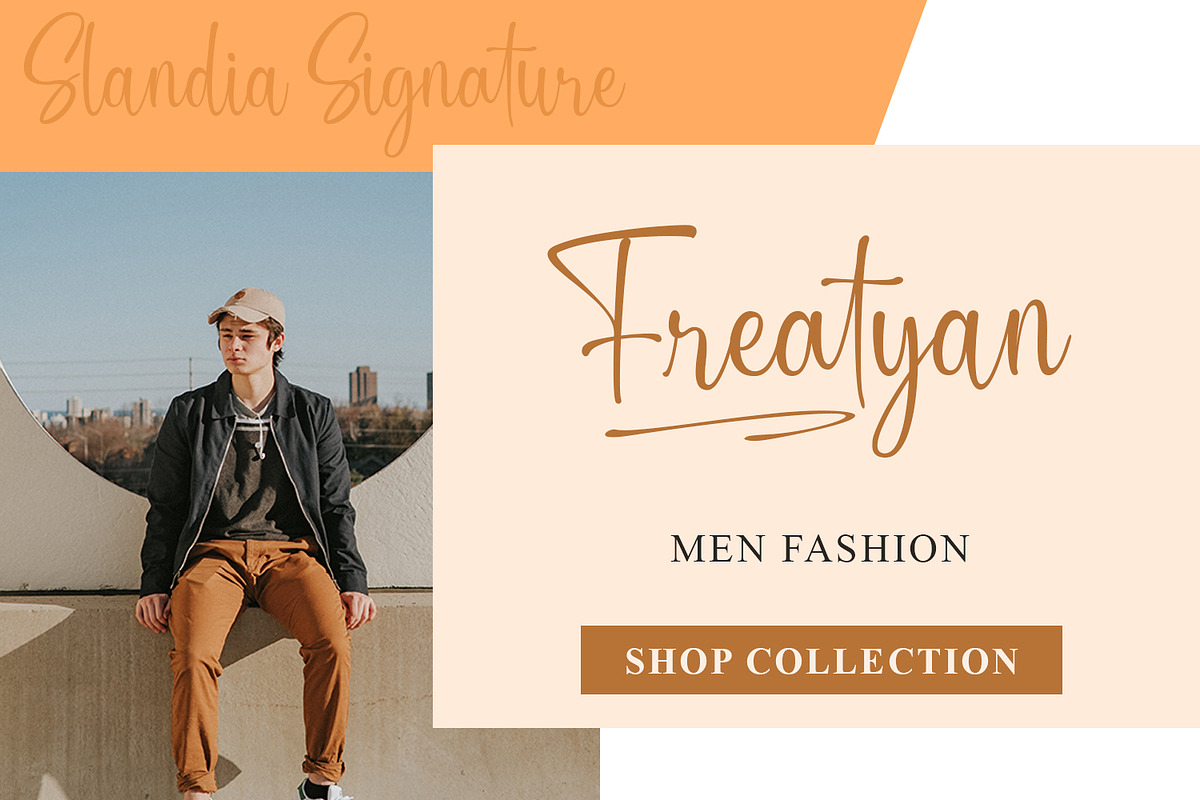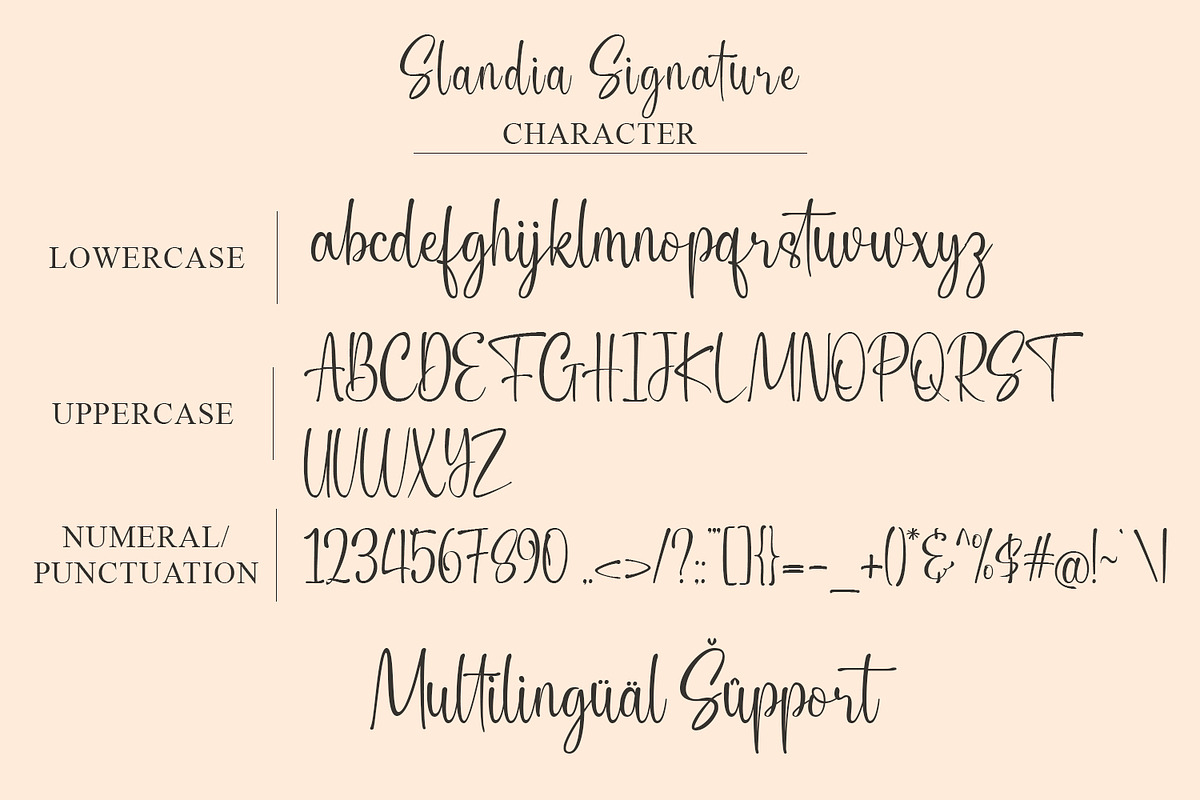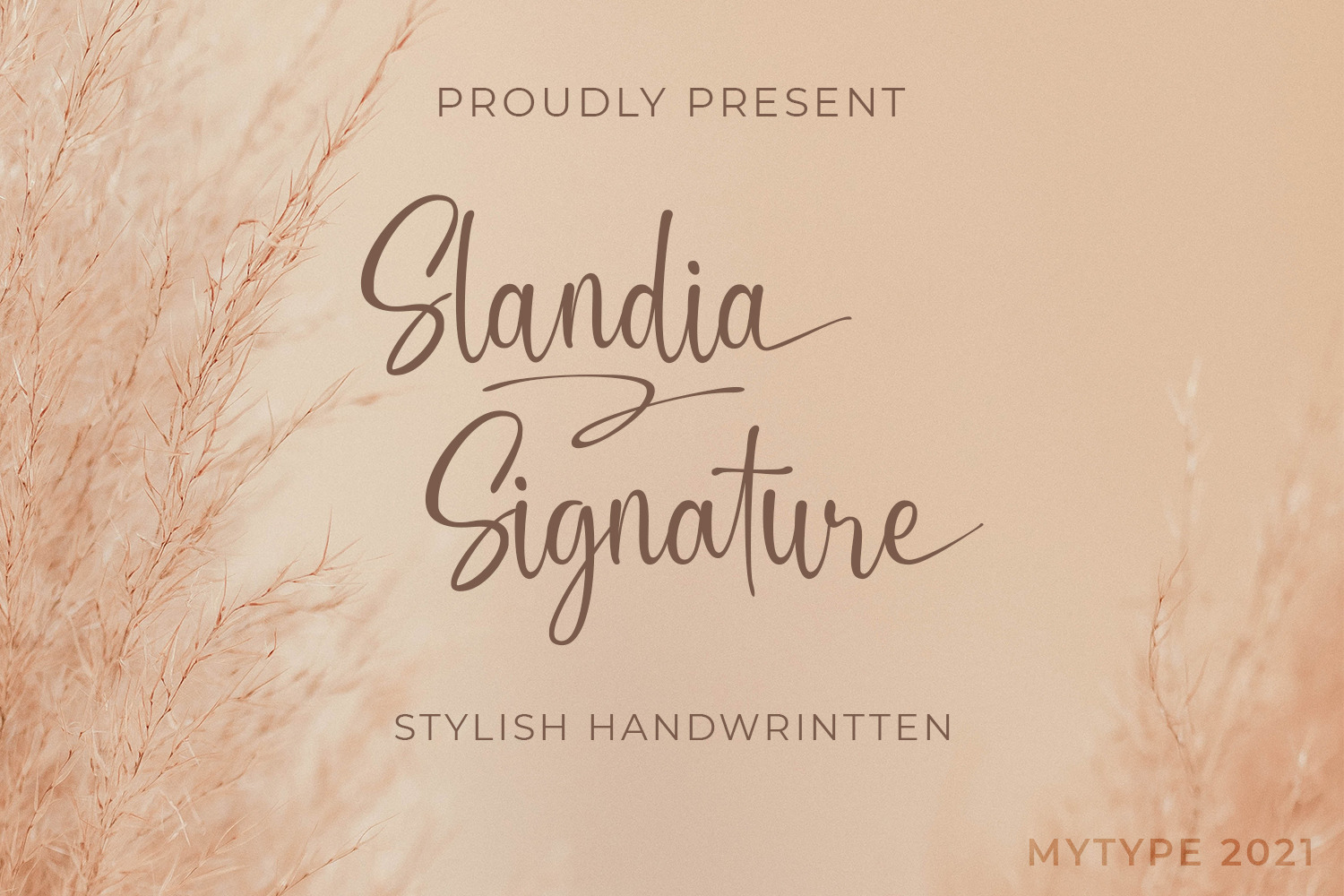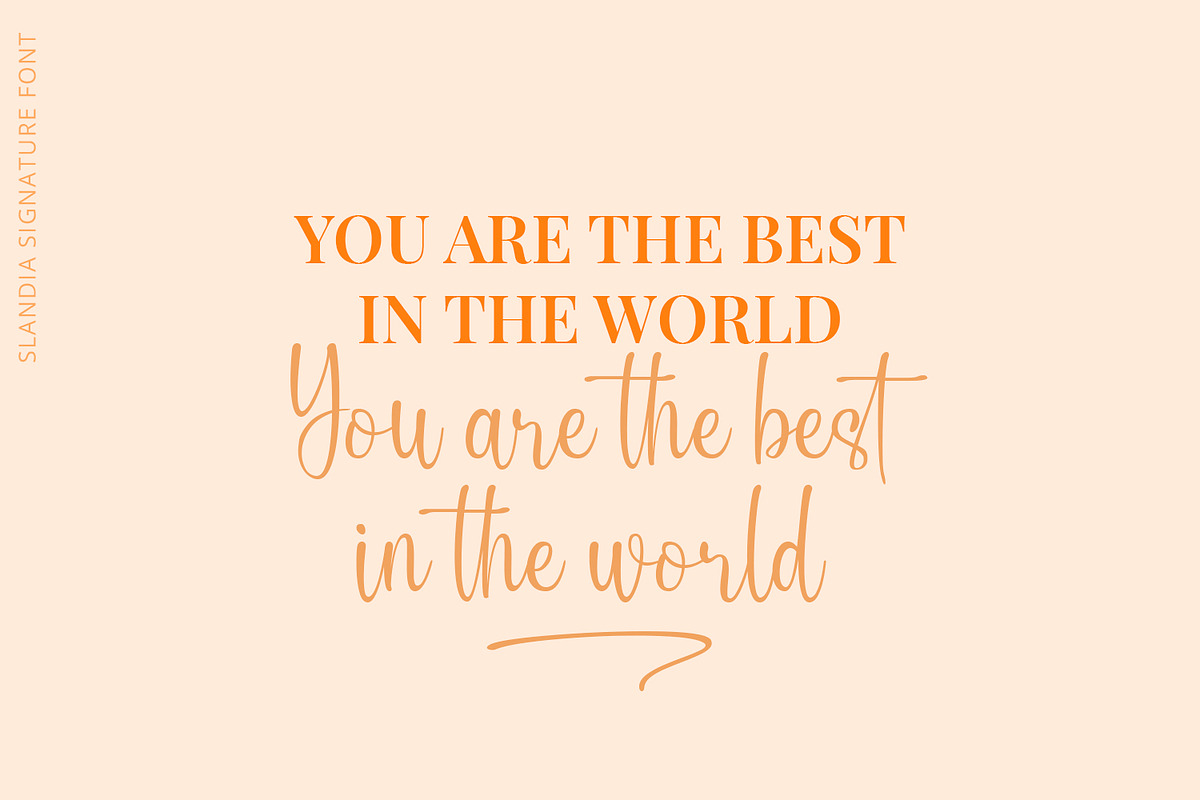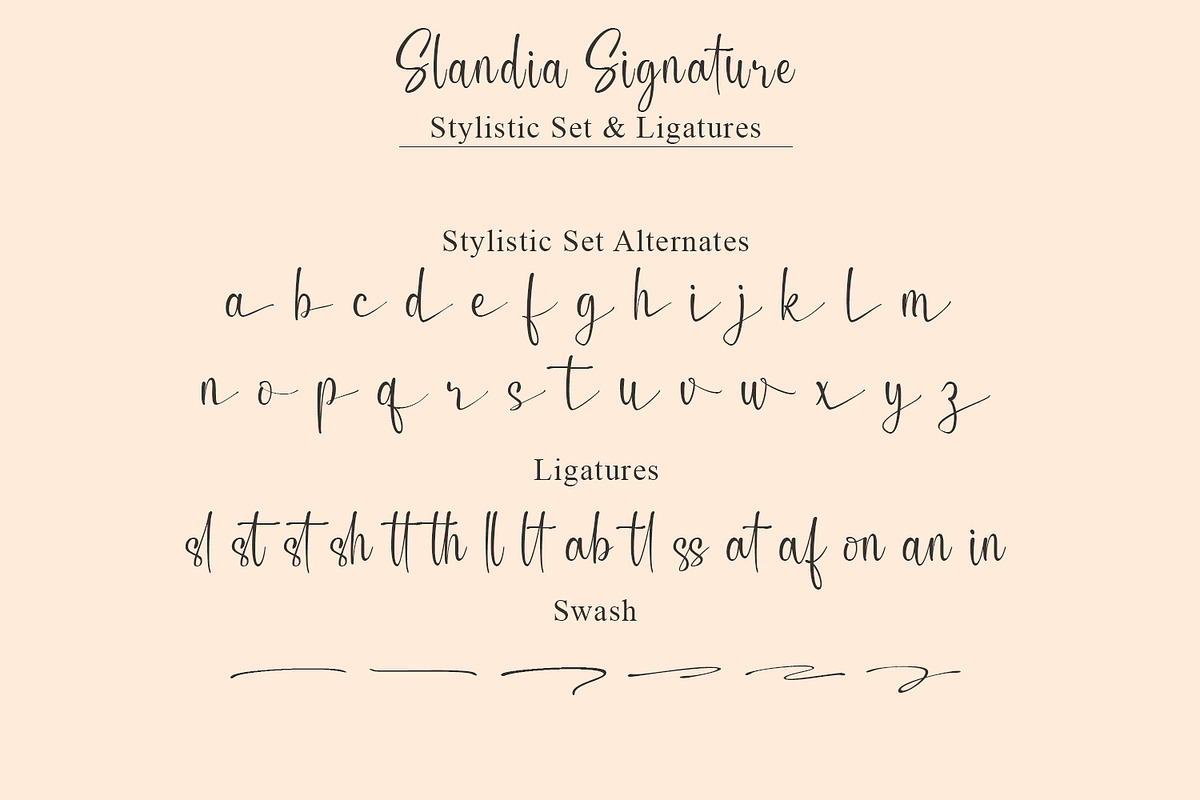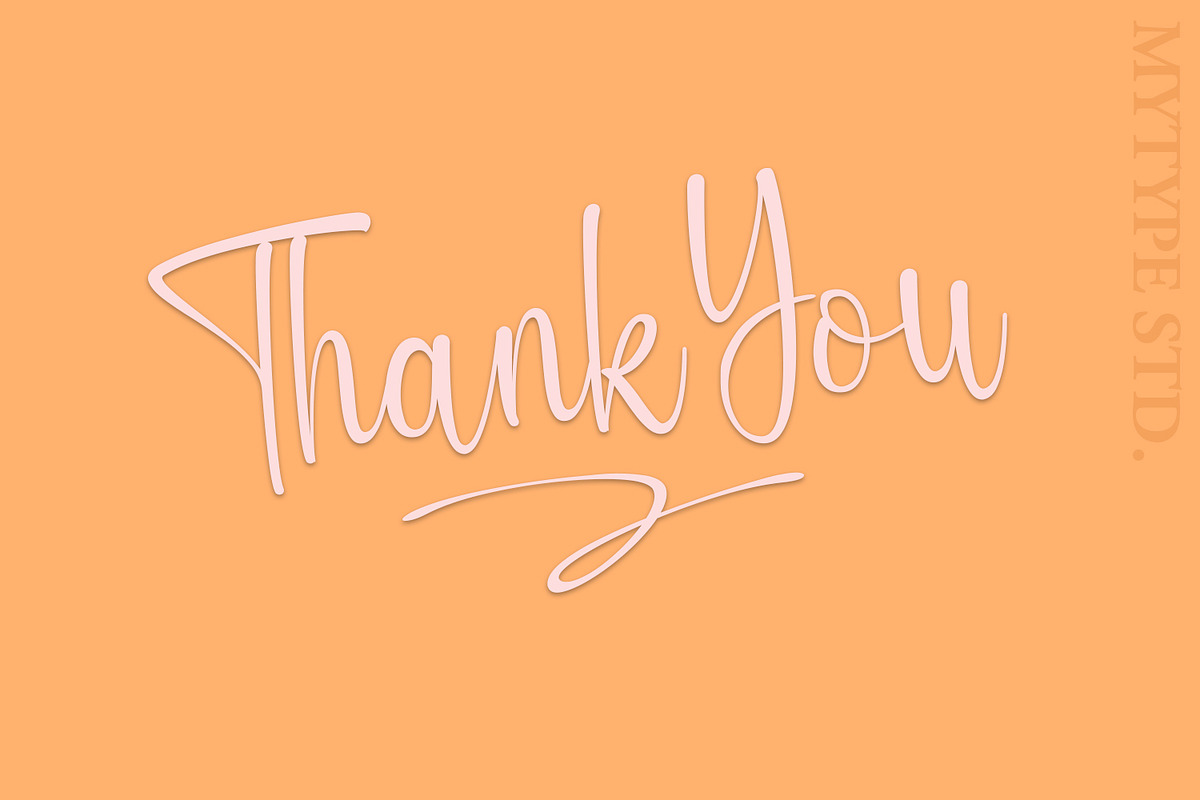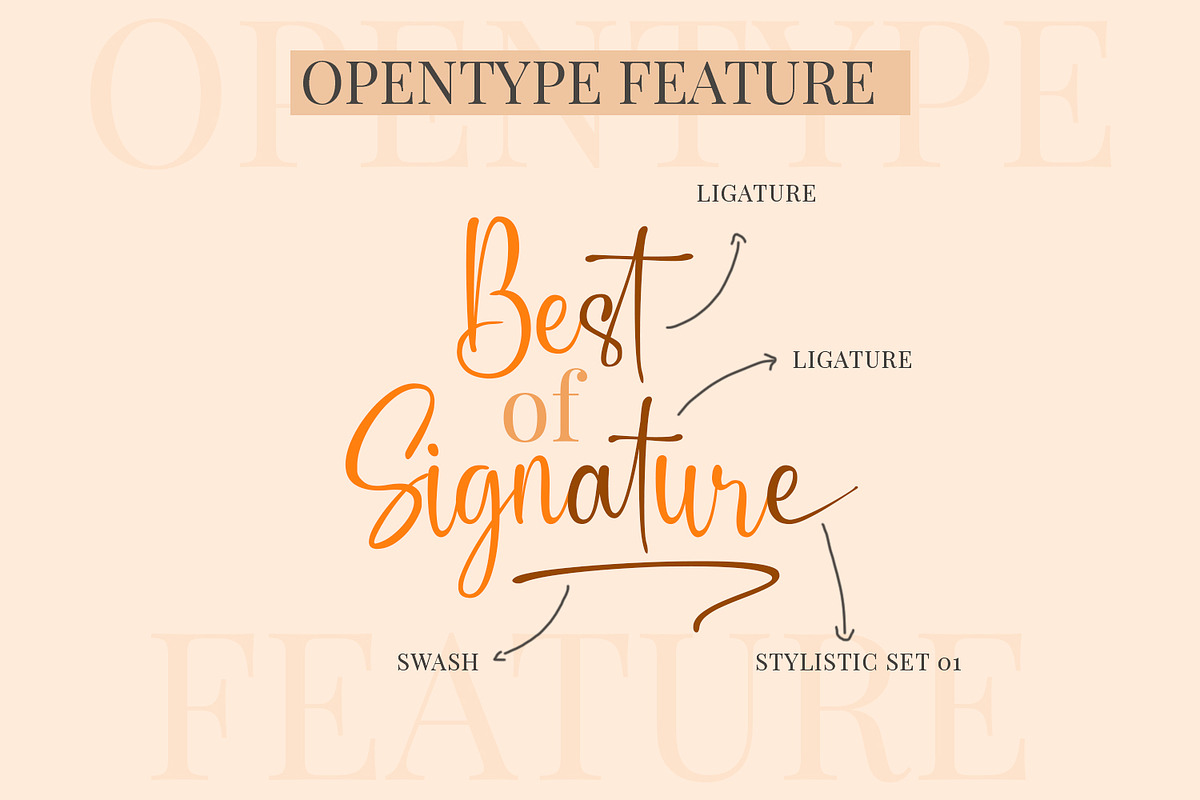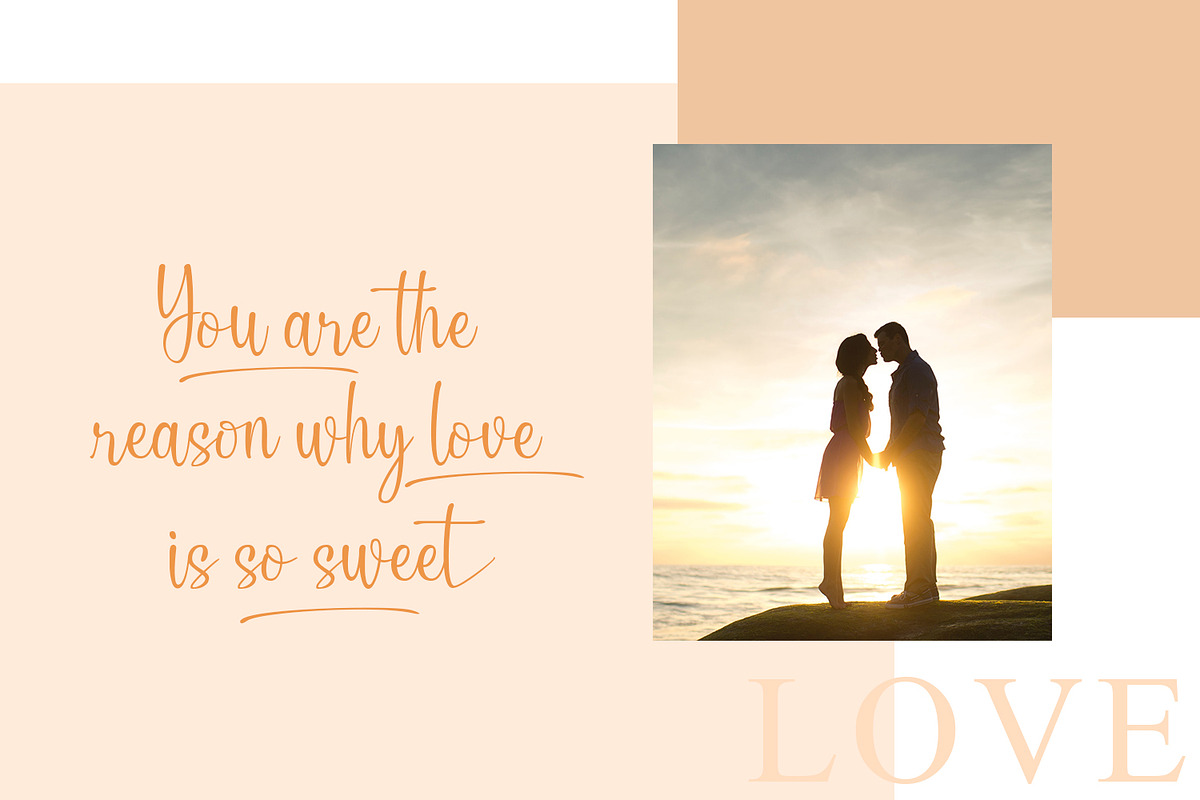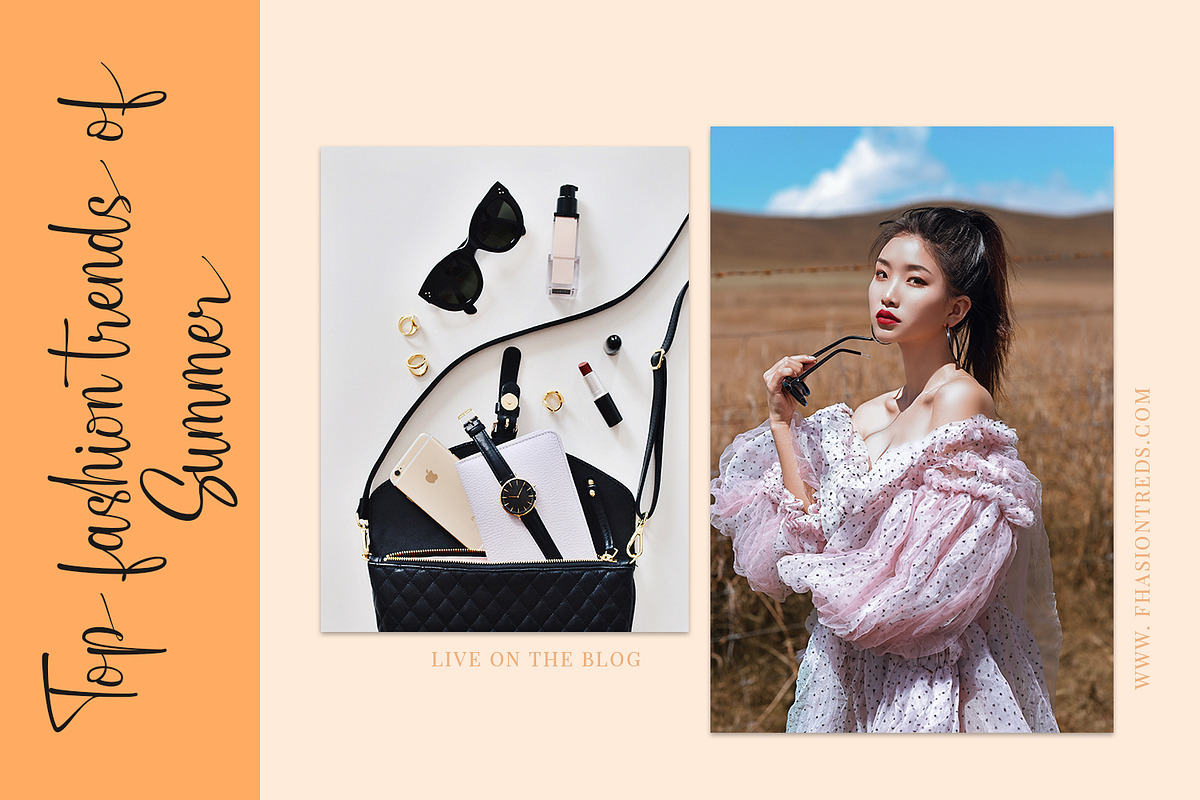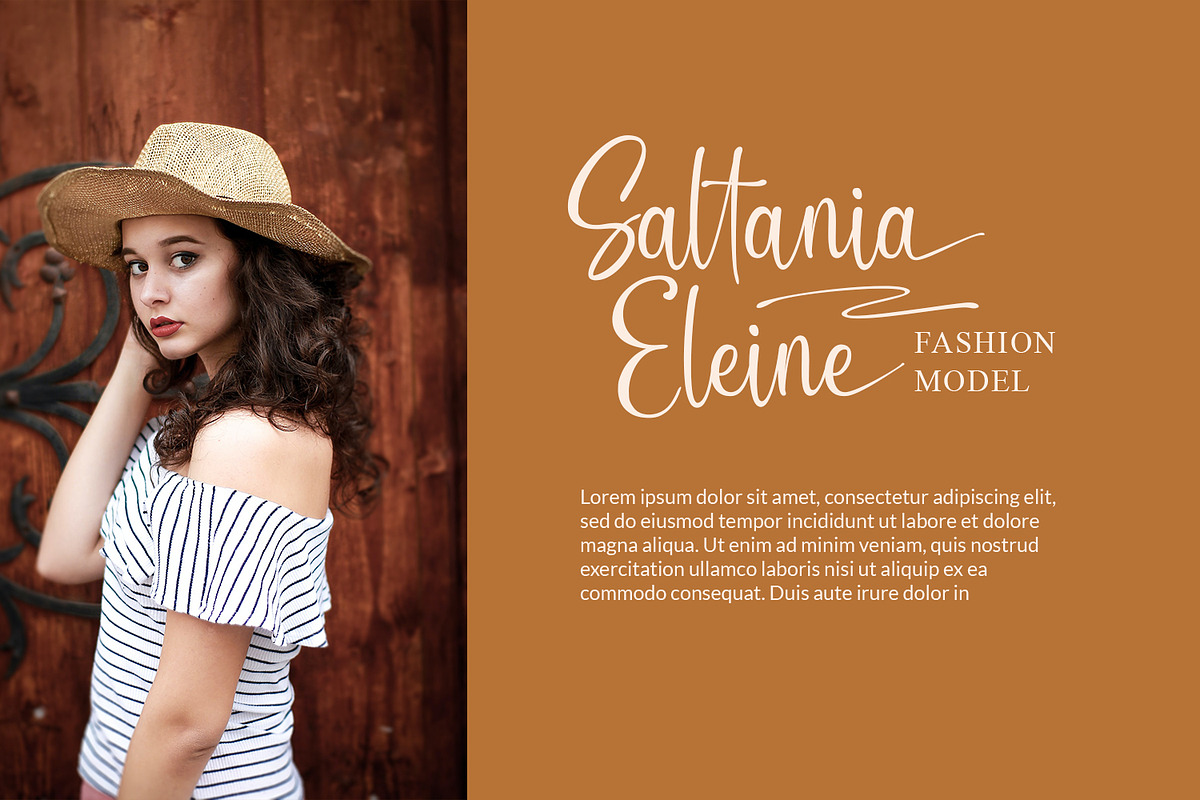
Slandia Signature / Handwriting Font
Slandia Signature is script collection font with natural movement make looks elegant, classy and beauty for your project. Slandia Signature is perfect for branding projects, logo, wedding designs, social media posts, advertisements, product packaging, product designs, label, photography, watermark, invitation, stationery and any projects that need handwriting taste.
This gorgeous font includes all lowercase and uppercase characters, numbers, punctuation, an array of standard ligatures and a selection of international characters as well